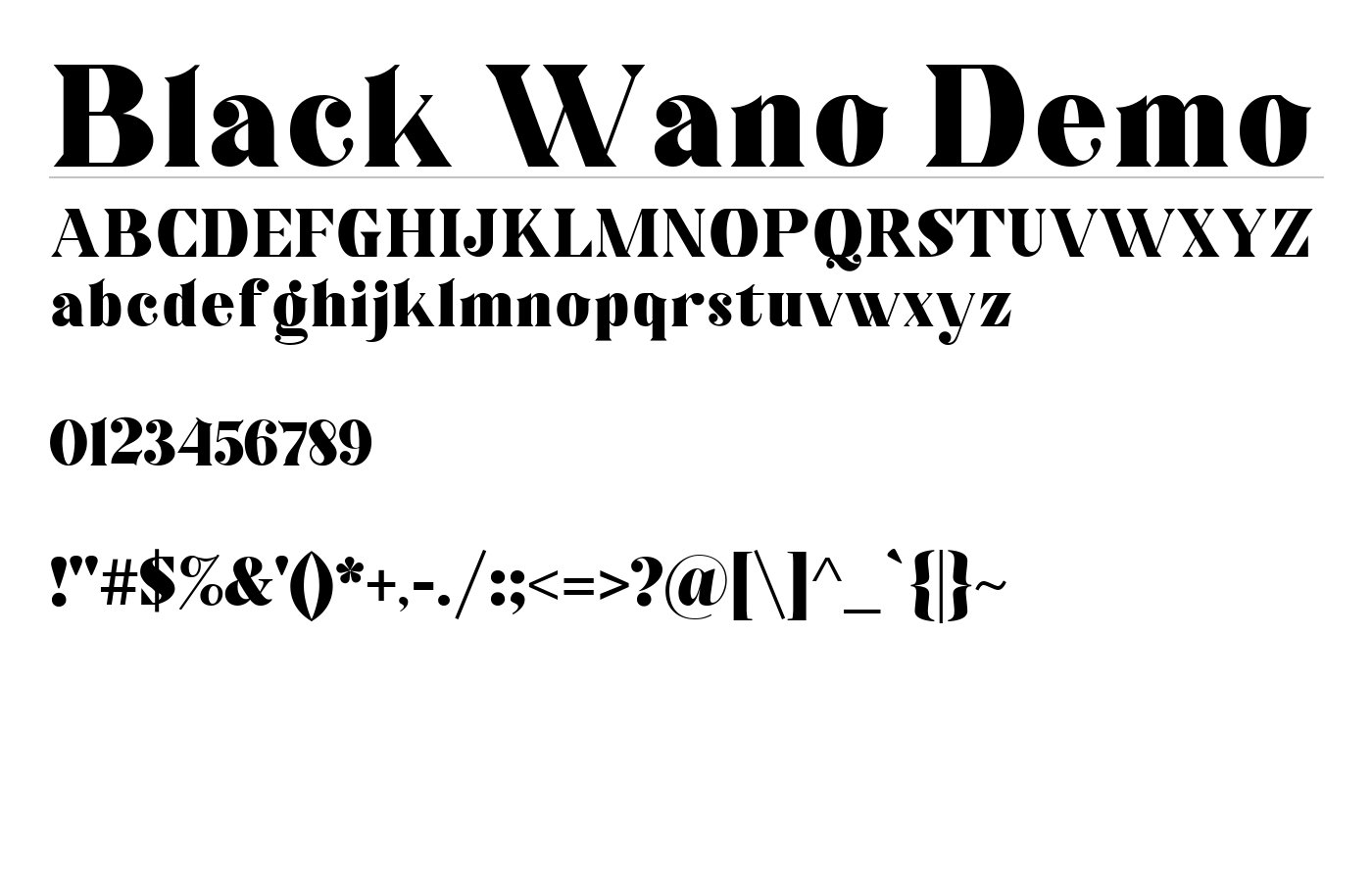
Black Wano is a bold serif typeface with modern Didone influences, characterized by high contrast between thick and thin strokes and sharp, elegant serifs. Its striking letterforms and refined details make it perfect for luxury branding, headlines, and editorial design where a sophisticated and impactful look is desired. This font combines classic elegance with contemporary flair, making it highly suitable for fashion, packaging, and premium print projects.
Black Wano Font
About Black Wano Font
| Designer | Ekayasa |